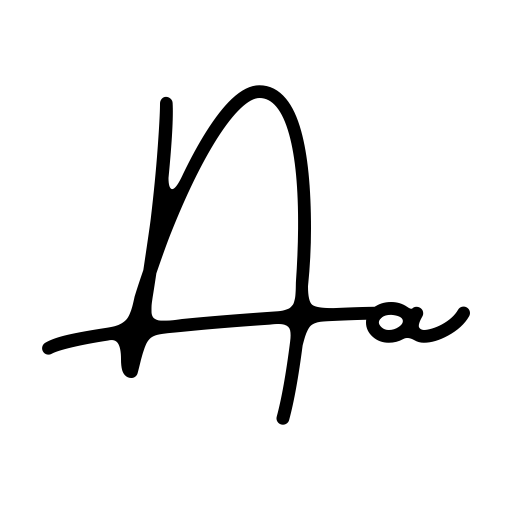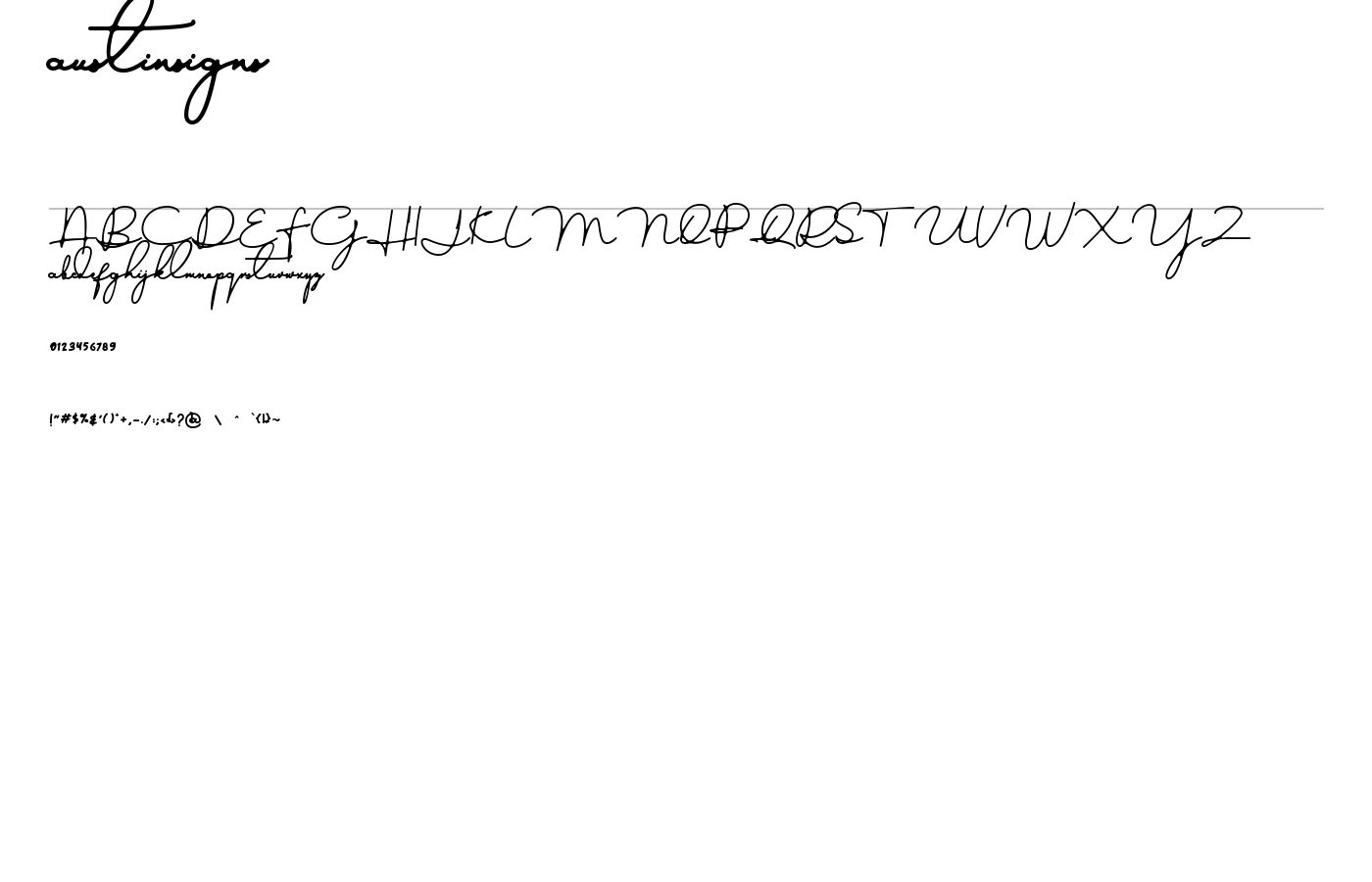
Austinsigns is a delicate, handwritten script font that exudes a personal and artistic touch with its thin, flowing lines and elegant curves. Its narrow width and light weight create an airy, sophisticated feel perfect for invitations, branding, and creative projects that want to convey warmth and individuality. This font works beautifully in contexts where a casual, yet refined handwriting style is desired to add charm and a human element.
austinsigns Font
About austinsigns Font